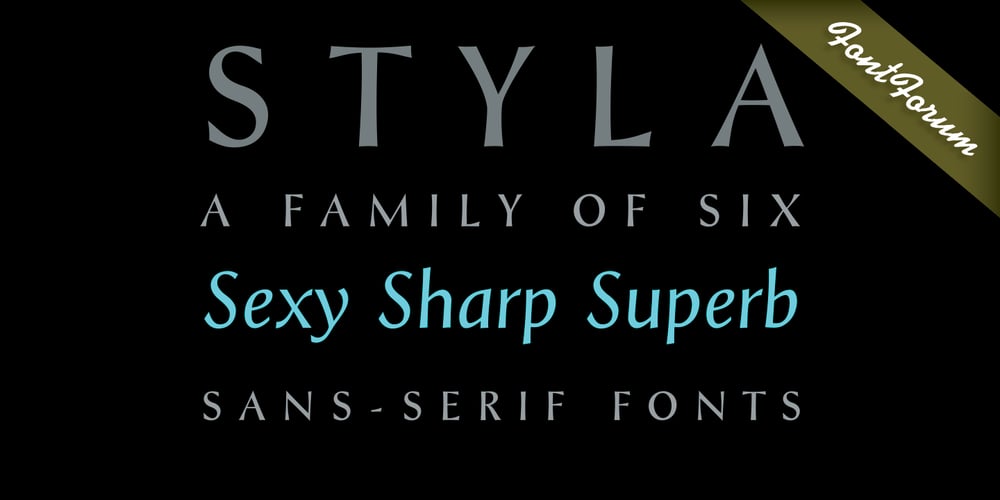
Styla Pro
Styla Pro font
Styla Pro Font Family was designed by João Henrique Lopes and published by URW Type Foundry. Styla Pro contains 6 styles and family package options. Styla is a refined romantic sans, in the best tradition of Didot and Bodoni. The combination between Styla’s feminine grace and sharp endings creates an air of seduction, ideal for magazines, ads and books on fashion, fine arts, philosophy, luxury goods, women and love. A typographic jewel, Styla brings romantic sensuality and refinement to the world of sans-serifs.